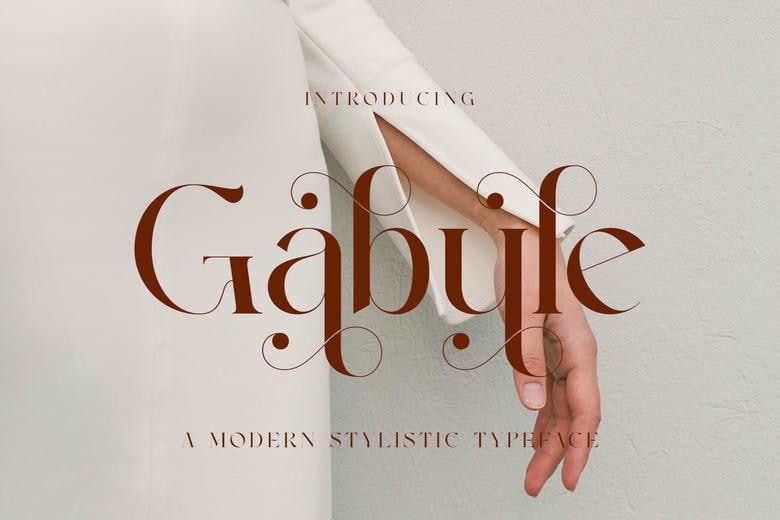
Gabule Font
Gabule is a smooth contemporary face that has a classical charm about it. Gabule was made with comfortable curves and elegant letterforms giving it a contemporary but classic impression with whatever design it is applied to. Free to use in branding, fashion edits, up market packaging and social media graphics and elite logos.
This typeface has high-quality aesthetics, but it is also playable, which makes it easy to use in formal and extra-formal works. Sometimes you want to make a loud statement and others you want something as modest as a minimalist brand identity or a catching headline, Gabule makes the point boldly yet gracefully and elegantly.